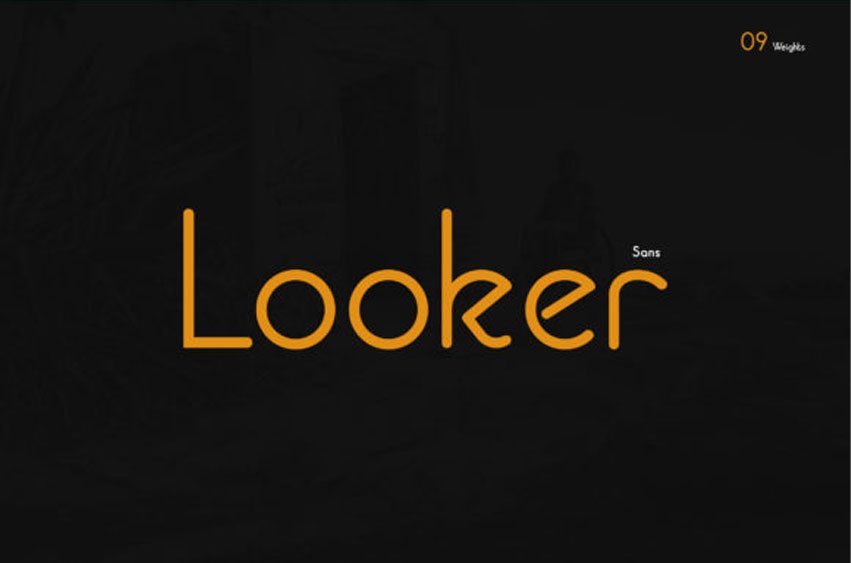
Looker Font is a minimal and neat sans-serif font.
It can easily be matched to an incredibly large set of projects, so add it to your creative ideas and notice how it makes them stand out!